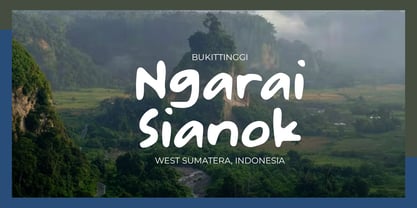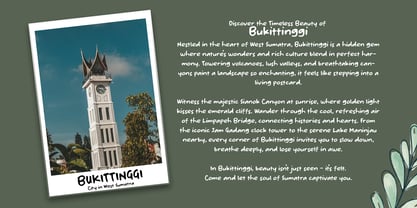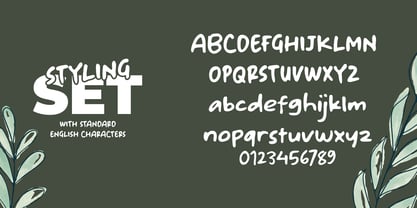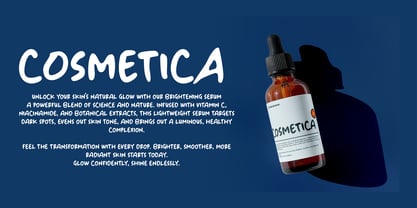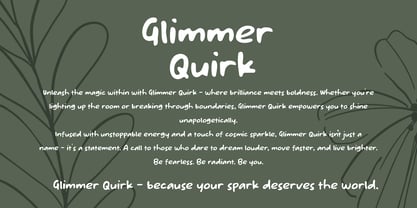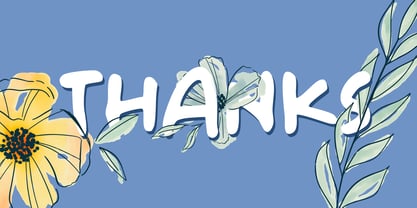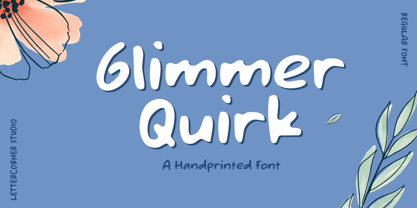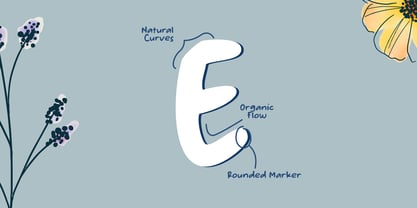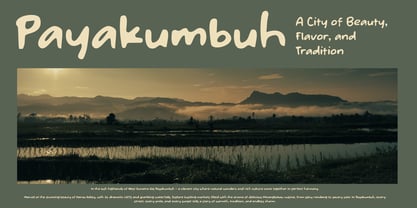
Glimmer Quirk
by Mevstory Studio
The Glimmer Quirk Font Family was designed by Muhammad Afif Ersya and published by Mevstory Studio. Glimmer Quirk contains 1 styles. More about this family
Unleash the magic within with Glimmer Quirk — where brilliance meets boldness. Whether you're lighting up the room or breaking through boundaries, Glimmer Quirk empowers you to shine unapologetically.
Infused with unstoppable energy and a touch of cosmic sparkle, Glimmer Quirk isn’t just a name — it's a statement. A call to those who dare to dream louder, move faster, and live brighter.
Be fearless. Be radiant. Be you.
Glimmer Quirk — because your spark deserves the world.
Glimmer Quirk is a lively marker typeface full of charm and playful energy.
With its smooth handwritten flow and over custom ligatures, it brings a natural, cohesive look to any project.
Perfect for logos, branding, quotes, social media graphics, and creative photography, Glimmer Quirk adds a spark of personality and effortless style wherever it goes. Let your designs shine with a font that's bold, organic, and full of heart.
Designers: Muhammad Afif Ersya
Foundry: Mevstory Studio